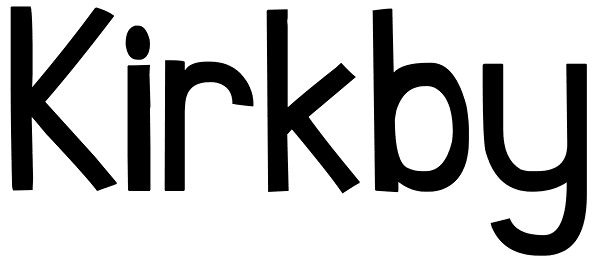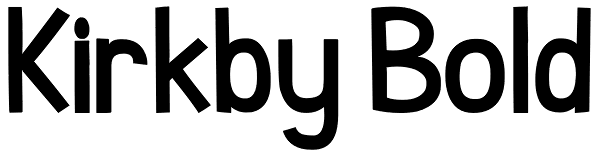
Kirkby
Kirkby is a fun, hand-drawn styled font which comes in 3 weights: regular, bold and fat. Regular and bold come with italics. They are perfect for party invitations to anything that needs to be fun. Kirkby comes with a range of european charaters...